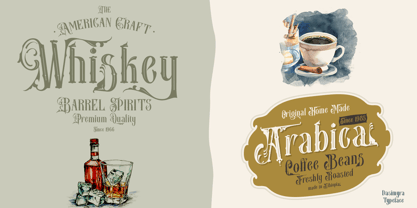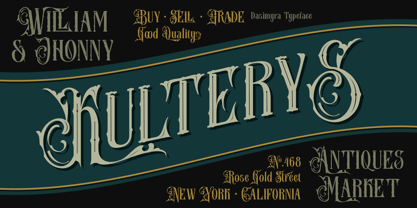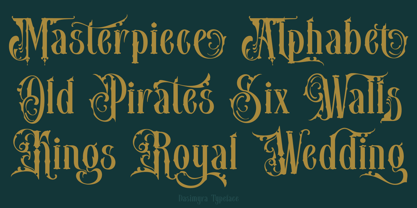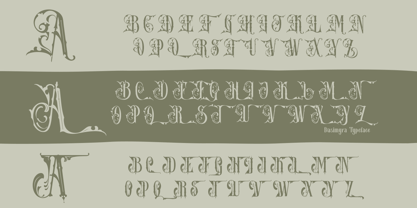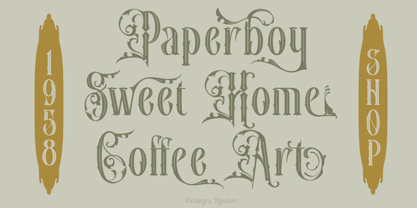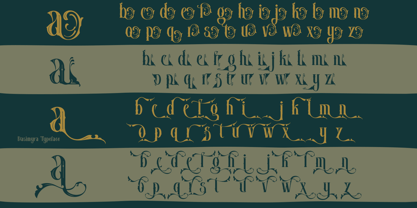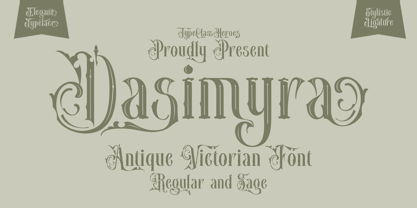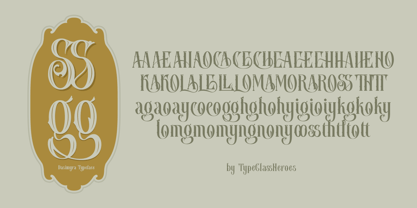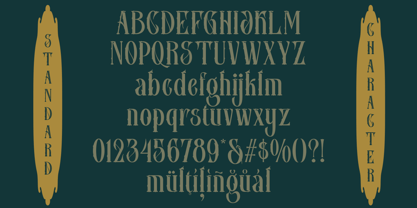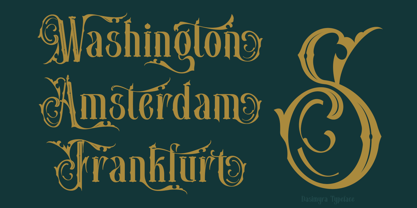
Dasimyra
von TypeClassHeroes
Die Schriftfamilie Dasimyra wurde von Suandana ipandemade entworfen und von TypeClassHeroes veröffentlicht. Dasimyra enthält 2 Stile und Familienpaketoptionen. Mehr über diese Familie
Introducing Dasimyra antique Victorian typeface, a classic, ornate font with a majestic and elegant Victorian style, creating a luxurious and authentic feel. It conveys a timeless sense of luxury and professionalism with its classy character and harmonious visual balance, this font is ideal for branding applications that seek to emphasize an exclusive, trustworthy, and authoritative image. Dasimyra enhances any project with its distinctive style and refined aesthetic.
Designer: Suandana ipandemade
Foundry: TypeClassHeroes